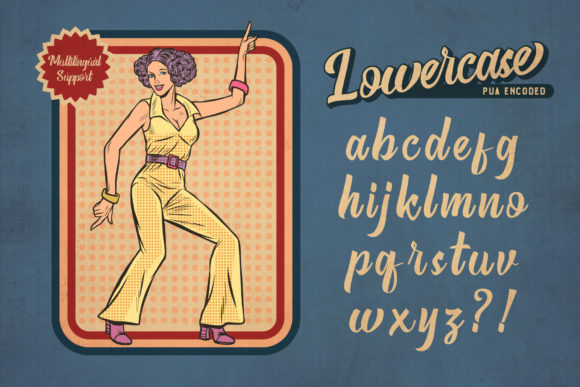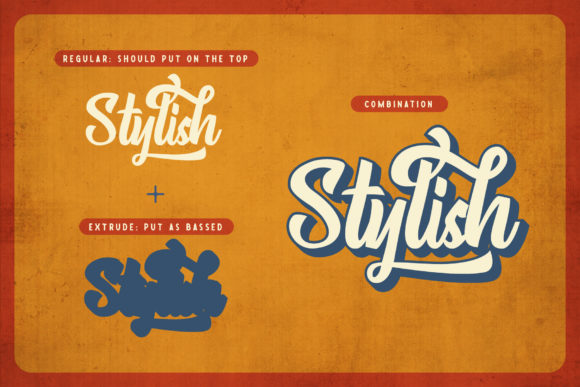
The Bleachers Font
db-ku.com - Script & Handwritten -- The Bleachers is a gorgeous and bold handwritten font, crafted to give your headlines and logotype projects a retro touch. This font reads as strong, confident, and dynamic and can add tons of nostalgic character to your designs.